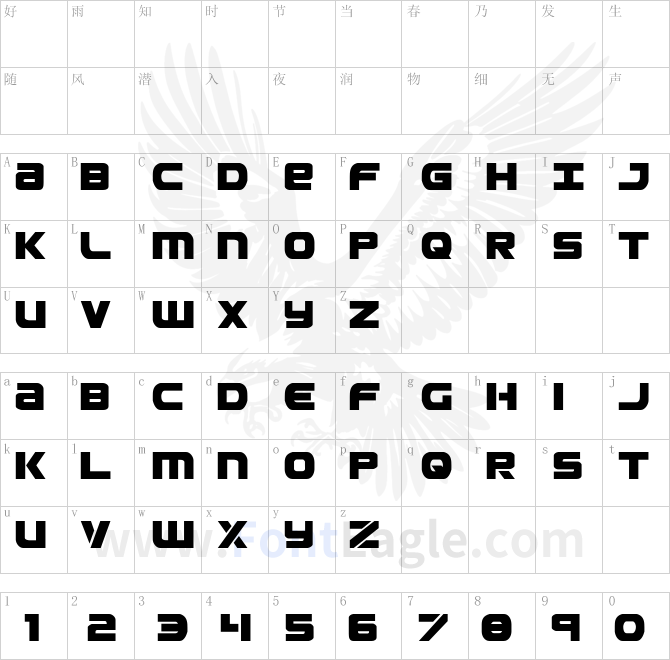
- Font name:Ozda
Ozda-Regular is a great font, widely used in graphic design, single-page menu design, poster design and other fields, and is deeply loved by designers.Ozda-Regular download.